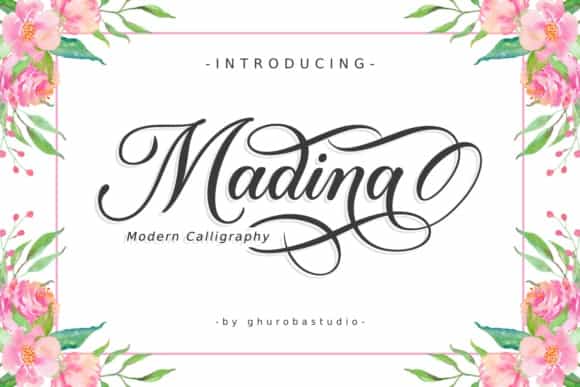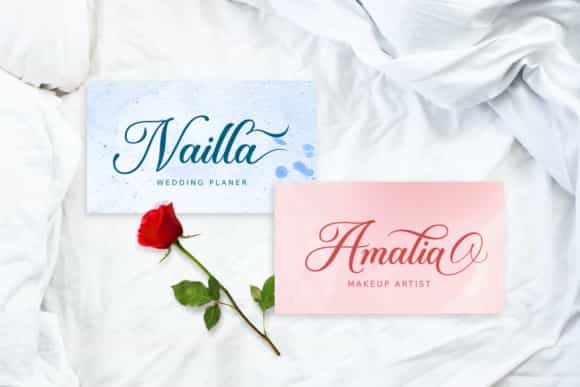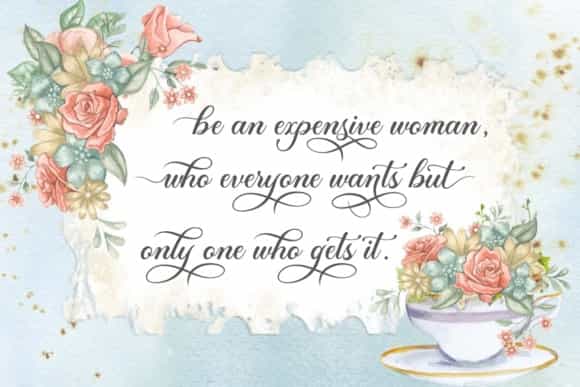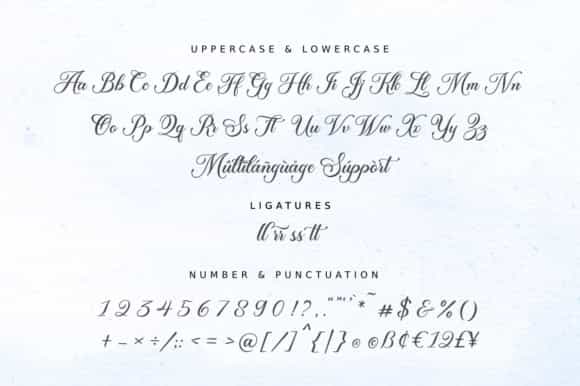
Madina is a a handwritten elegant copperplate calligraphy typeface that which combines copperplate and modern typeface with a bouncing background, elegant and classic touch. It is suitable for many uses. like headings, signatures logos, wedding invitations T-shirt, letterhead signs, lables news, posters and badges.